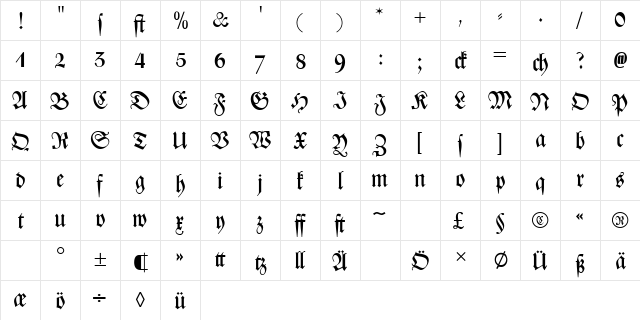
Zentenar-Fraktur OsF Regular
Design Context for Zentenar-Fraktur OsF Typeface
Zentenar-Fraktur OsF channels the dramatic heritage of Fraktur and Gothic scripts, bringing a sense of historical gravitas to any design.
A natural fit for music packaging, gothic editorial design, and any project that needs historical weight.
Font Pairing: Pair with a clean neutral sans-serif for body copy to let Zentenar-Fraktur OsF's character lead without overwhelming the composition.
Pro Tip: Reserve Zentenar-Fraktur OsF for display and logo use — pair it with a clean sans-serif for body copy to prevent the composition from feeling oppressive.